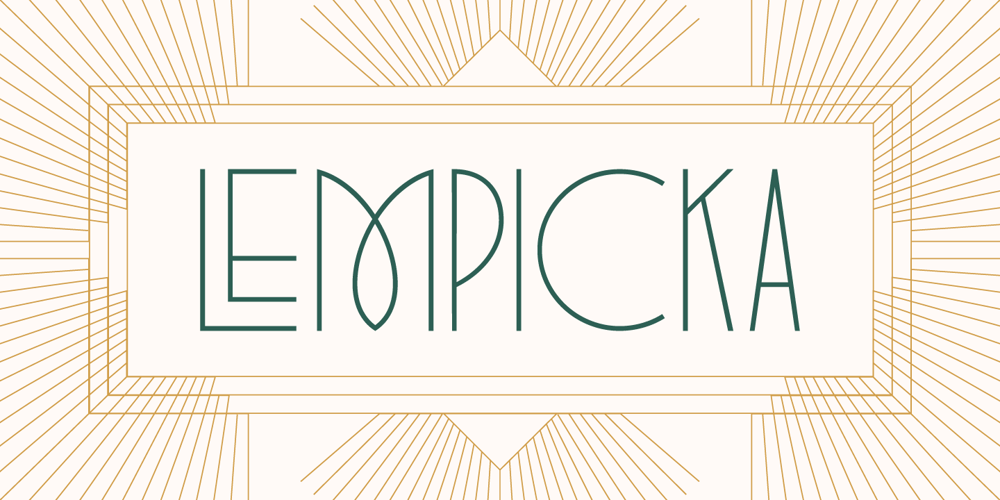
Lempicka
Lempicka font
Lempicka Font Family was designed by Molly Suber Thorpe and published by Molly Suber Thorpe. Lempicka contains 2 styles and family package options. Lempicka is a ligature-rich typeface duo with support for Latin and Greek.Lempicka Display and Small Caps are a pair of light, clean fonts with strong Art Deco character. Lempicka Display has over 150 ligatures and alternates (in Greek, too!), so it’s extremely customizable and versatile. Lempicka Small Caps is Display’s little sister: the perfect complement for creating hierarchy in a layout.⁠⠀This is a beautiful typeface for wedding invitations and personal stationery, as well as unique logo design and branding projects.The name of this type family is an homage to Art Deco painter Tamara de Lempicka.